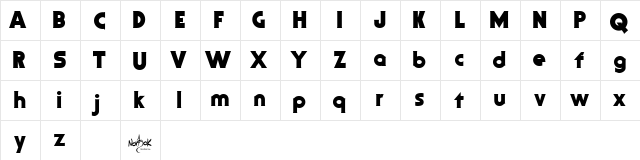
Halloween Real DEMO Regular
| Designer | Thomas W. Otto |
Design Context for Halloween Real DEMO Typeface
Halloween Real DEMO takes a measured approach to typography — its balanced proportions and neutral character make it a reliable workhorse for both digital and print work.